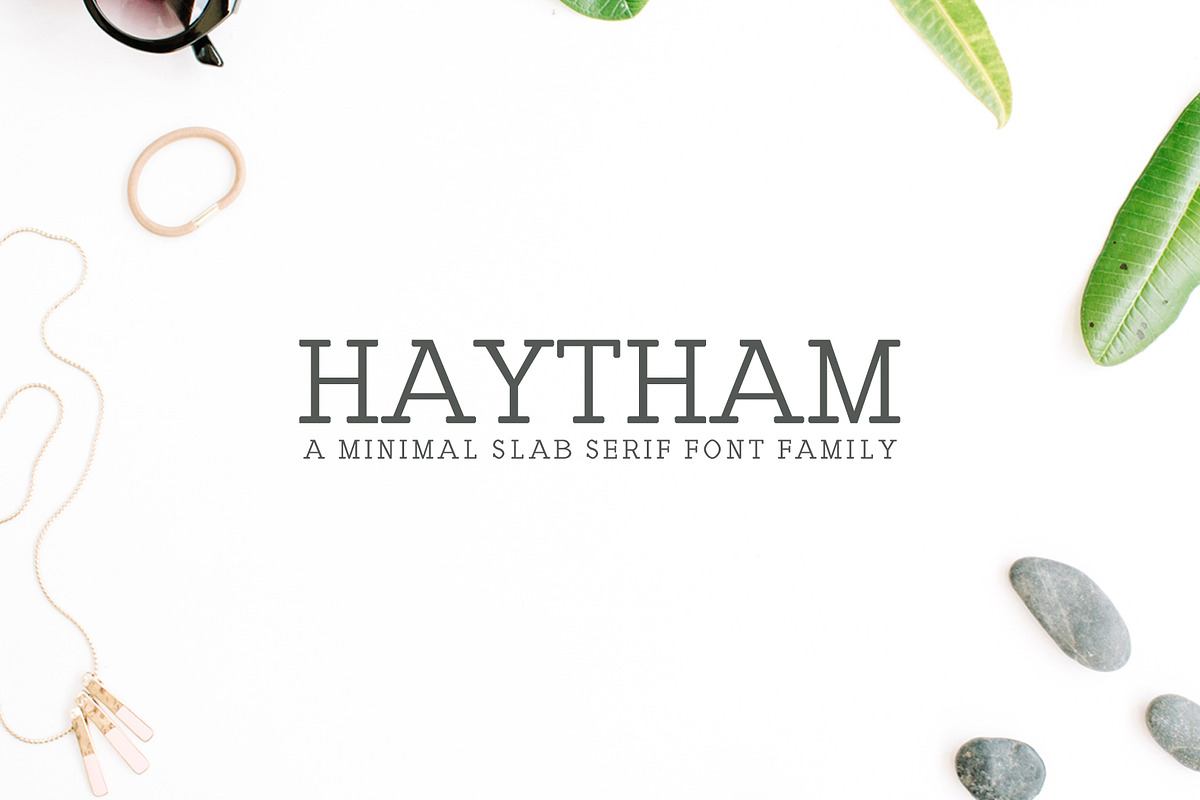
Haytham Slab Serif Fonts Packs offers a bold, stylish, and versatile typeface perfect for a wide range of design projects. From professional branding to creative advertisements, this font pack brings strength and clarity to your designs. Download Haytham Slab Serif Fonts Packs Free Download today and elevate your projects with this modern, robust font style!